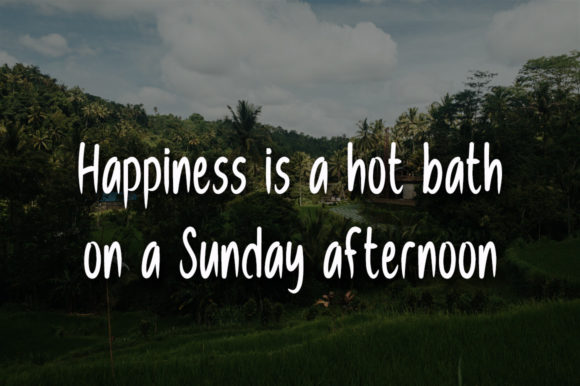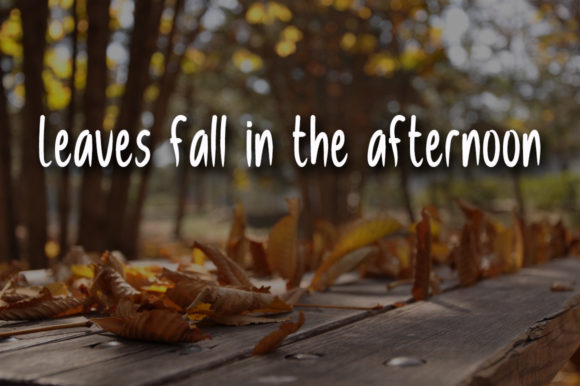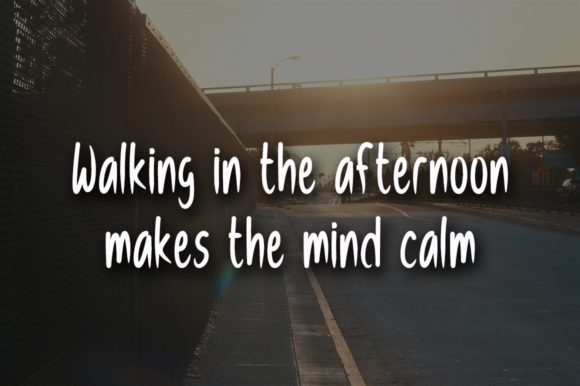
Sunny Afternoon Font
About Sunny Afternoon Font
Sunny Afternoon is a cool, simple and interestingly designed handwritten font. Whatever the topic, this font will be a wonderful asset to your font library, as it has the potential to enhance any creation.